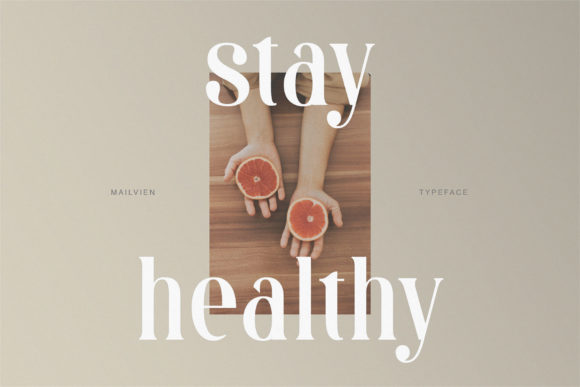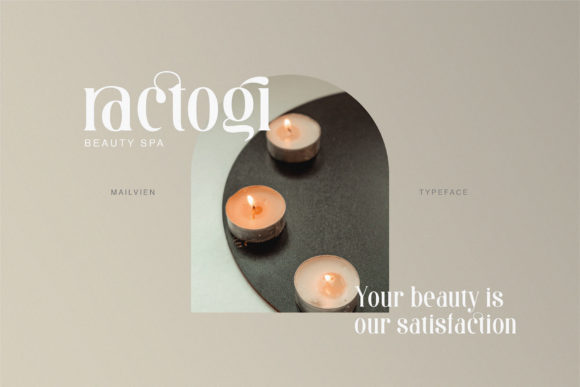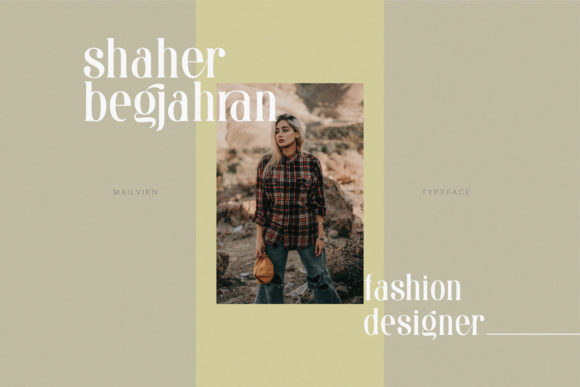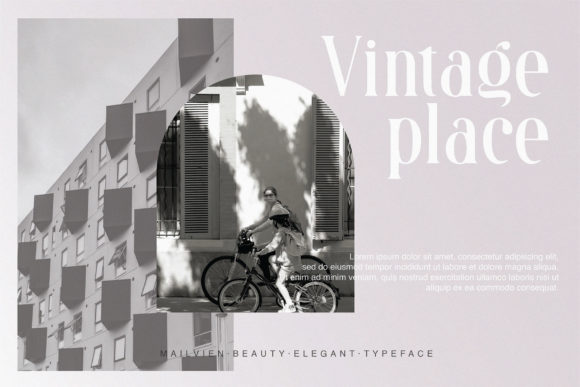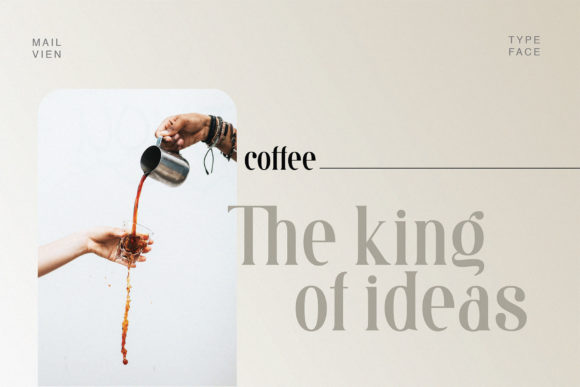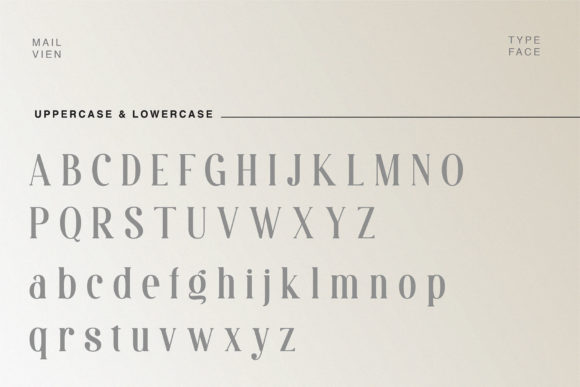
Introduction to Mailvien Font
Mailvien is a cool and thick lettered serif font.
Key Features of Mailvien Font
Why Choose Mailvien Font?
Mailvien Font offers exceptional quality and versatility, making it a valuable addition to your design toolkit. Whether you’re creating for personal projects or commercial use, Mailvien Font delivers professional results.